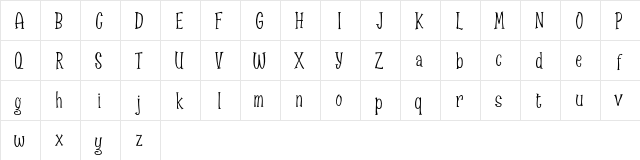
Spizzella Free Regular
| Foundry | Soti brother |
| Designer | Soti brother |
Design Context for Spizzella Free Typeface
Spizzella Free offers clean, dependable letterforms without strong stylistic allegiance, making it a practical choice for designers who need flexibility.